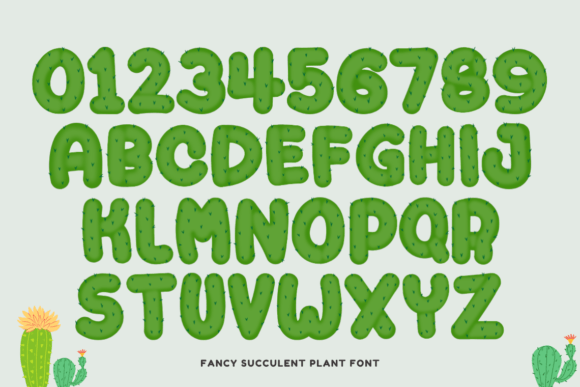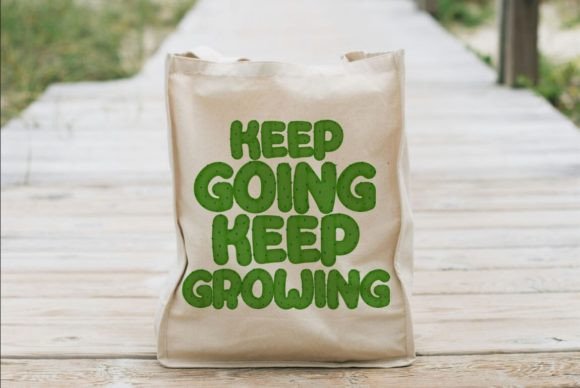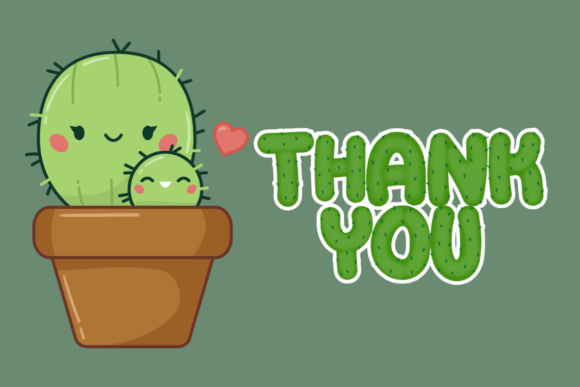
Introduction to Fancy Succulent Plant Font
Have you ever been working on a creative project, pouring your heart and soul into it, and suddenly, you stumble upon the perfect design element that brings it all together? That’s exactly what happened to me when I discovered the enchanting Fancy Succulent Plant Font. As a designer, I’m always on the lookout for unique and high-quality resources to elevate my projects, and this font did just that.
With its intricate patterns and vibrant hues, the Fancy Succulent Plant Font is a true gem for designers. It’s perfect for adding a touch of botanical elegance to invitations, greeting cards, and branding materials. The best part? This font is a color font, meaning it’s compatible with popular design software like PhotoShop and Illustrator, making it a valuable addition to any design resource library.
Key Features of Fancy Succulent Plant Font
- High-quality design resource ideal for creative projects, offering a unique and stylish touch.
- Perfect for designers and artists seeking a high-quality, premium-looking font for their projects.
- Includes a wide range of characters, including uppercase and lowercase letters, numbers, and special characters, making it a versatile design resource.
Honest Review: Fancy Succulent Plant Font
I recently came across the Fancy Succulent Plant Font, and I must say, it’s been a game-changer for my creative projects. As a designer, I’m always on the lookout for unique and high-quality design resources, and this font definitely fits the bill.
Here are some of the things that work well about this font:
- ✨ High-quality design: The font is incredibly detailed and has a sophisticated, whimsical feel to it.
- ⚠️ Limited font styles: While the font is well-designed, it’s only available in a few different styles – which may limit its versatility in certain projects.
- ⚠️ Not suitable for all projects: The font’s whimsical feel may not be suitable for all types of projects, particularly those with a more serious or formal tone.
Overall, I’m really impressed with the Fancy Succulent Plant Font, and I think it’s a great addition to any designer’s toolkit. It’s perfect for creative projects that need a touch of whimsy and sophistication.
Fancy Succulent Plant Font
For the best results, use the Fancy Succulent Plant Font in a clean and simple design. It’s perfect for branding, logos, and packaging design. You can also use it in social media graphics, blog posts, and websites. Experiment with different font sizes, colors, and styles to add a touch of elegance to your creative project.